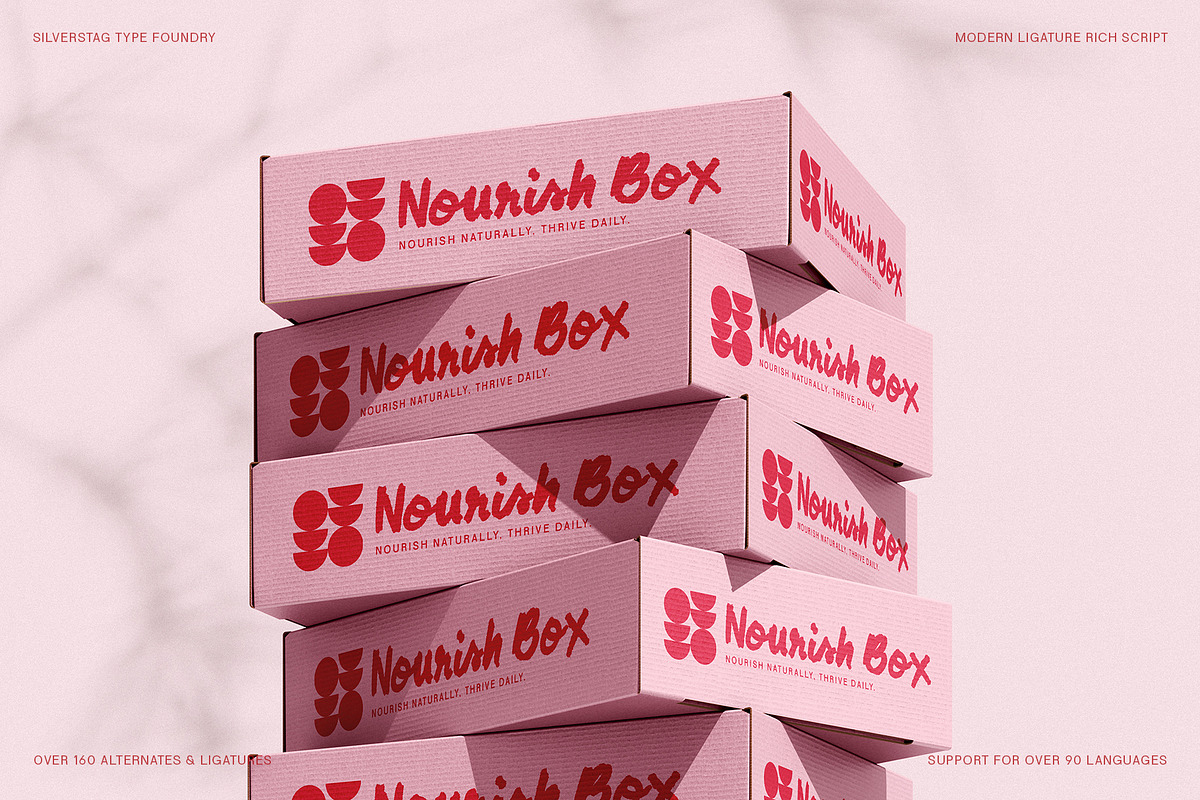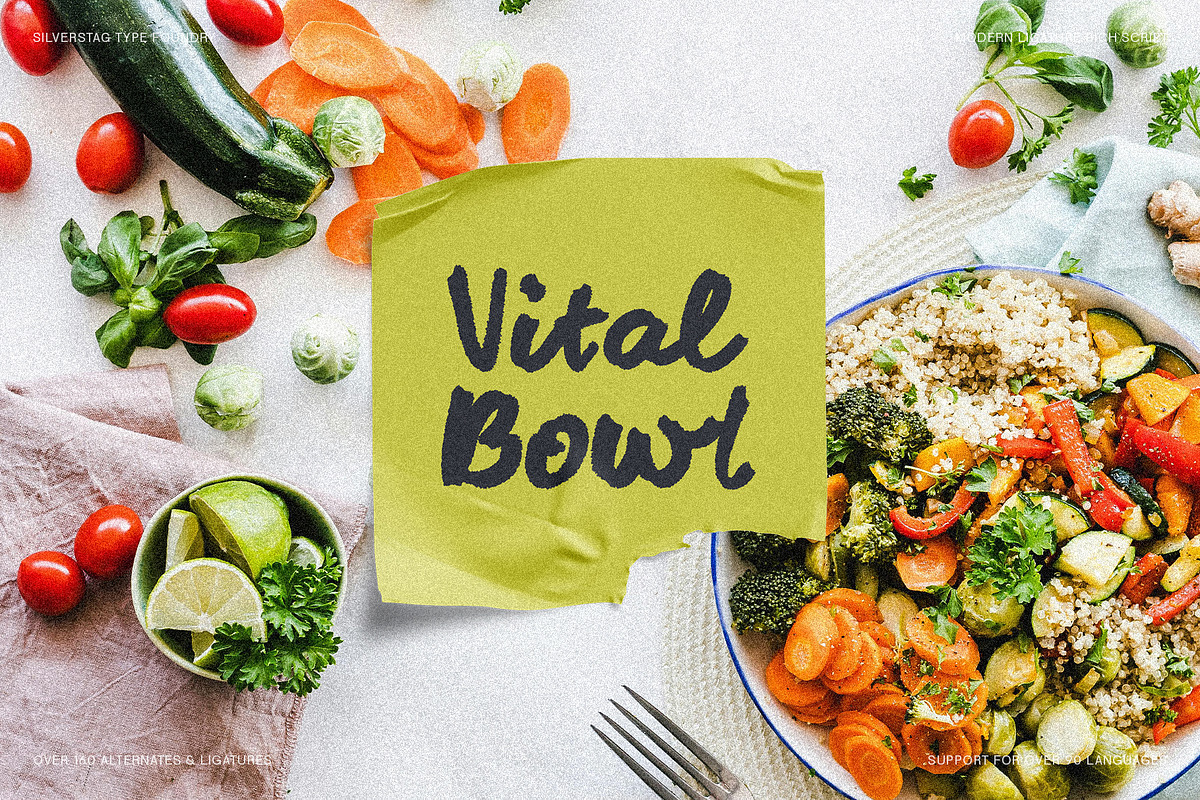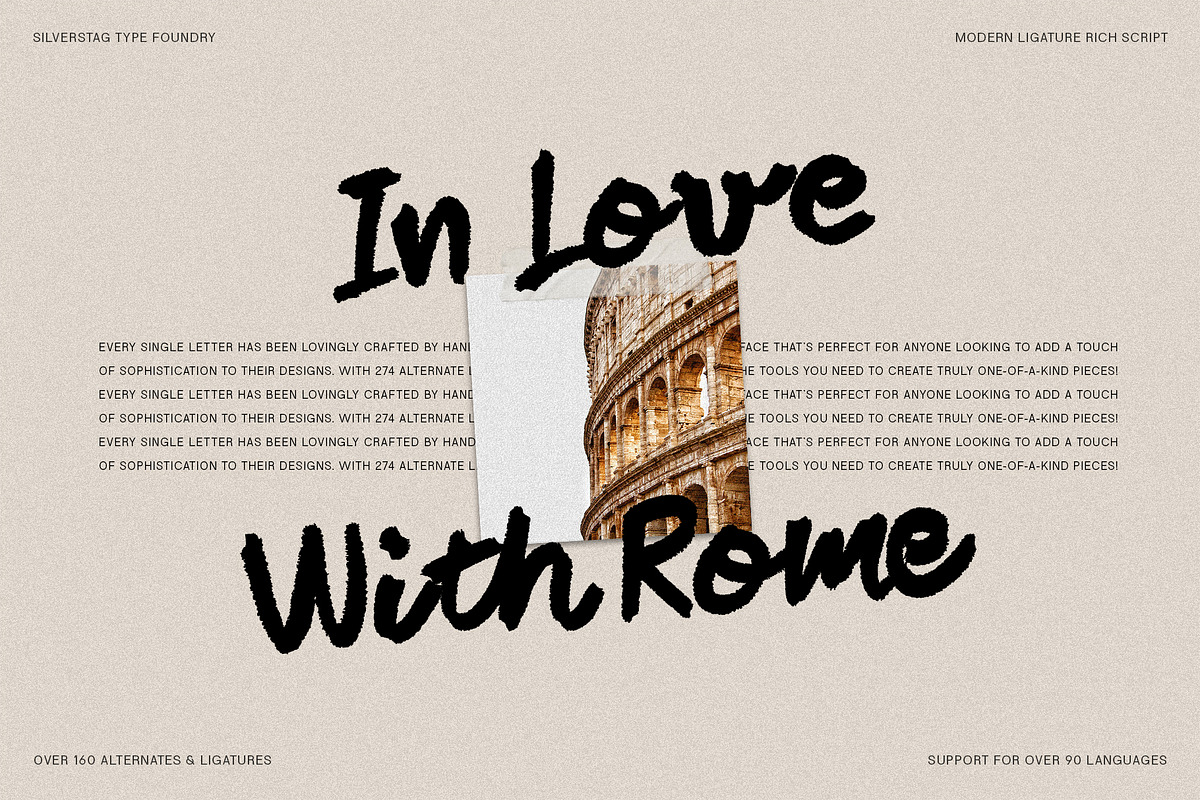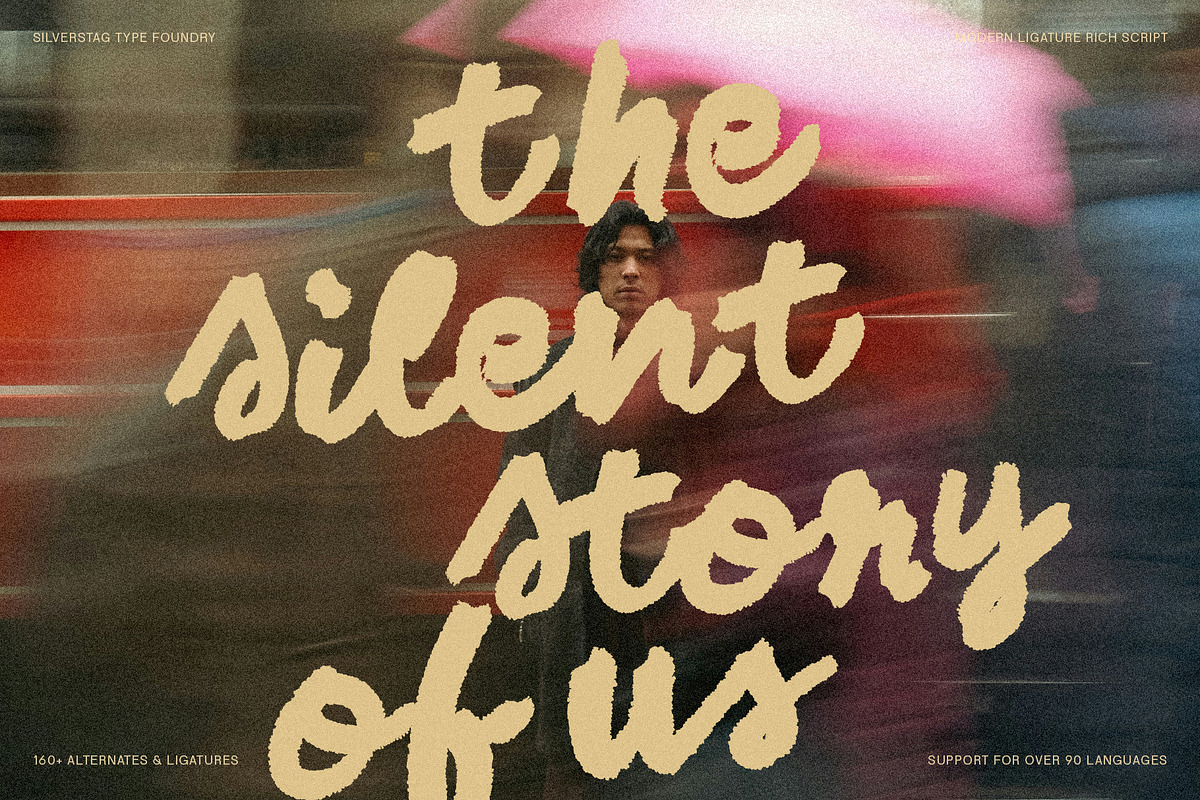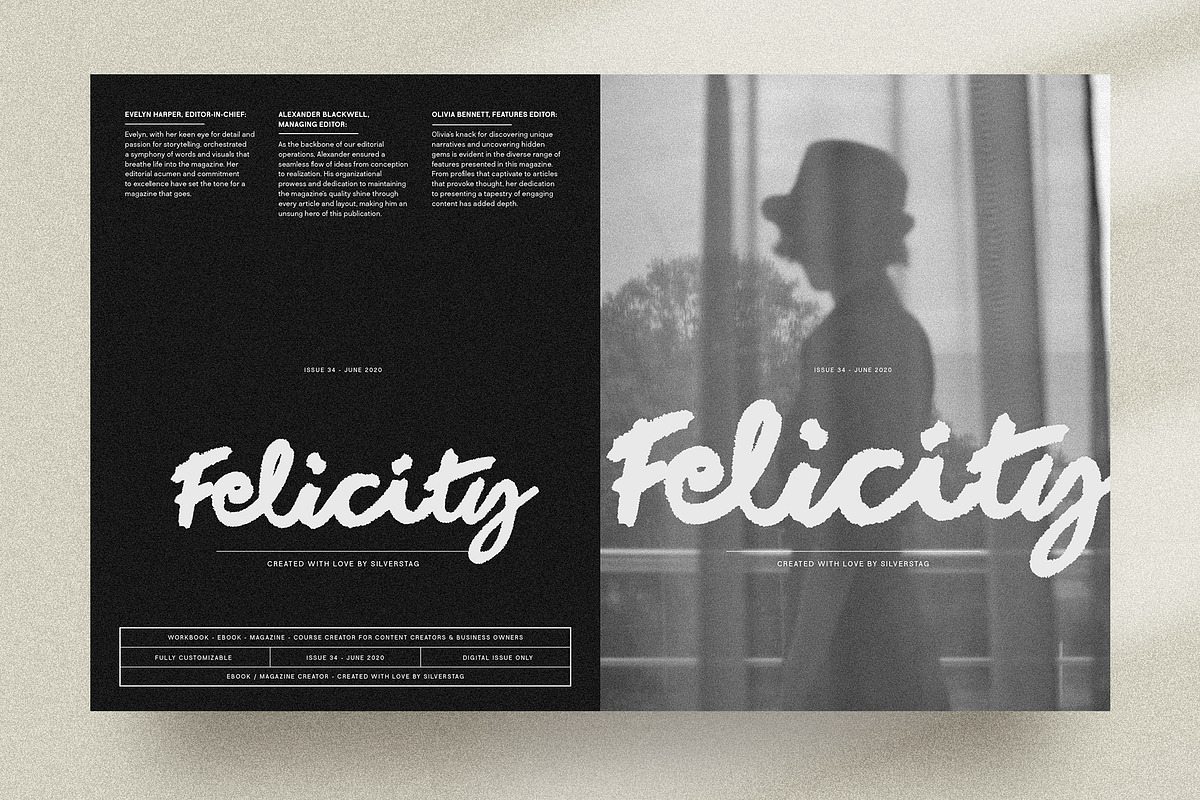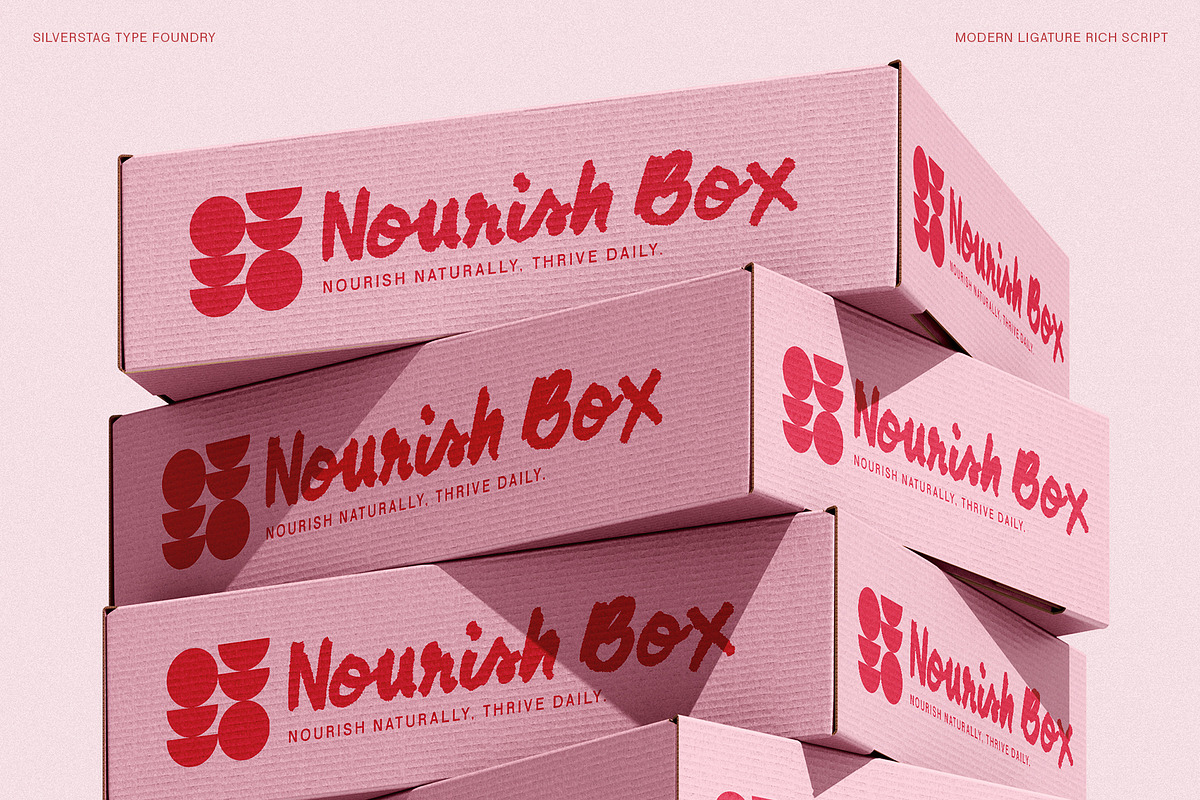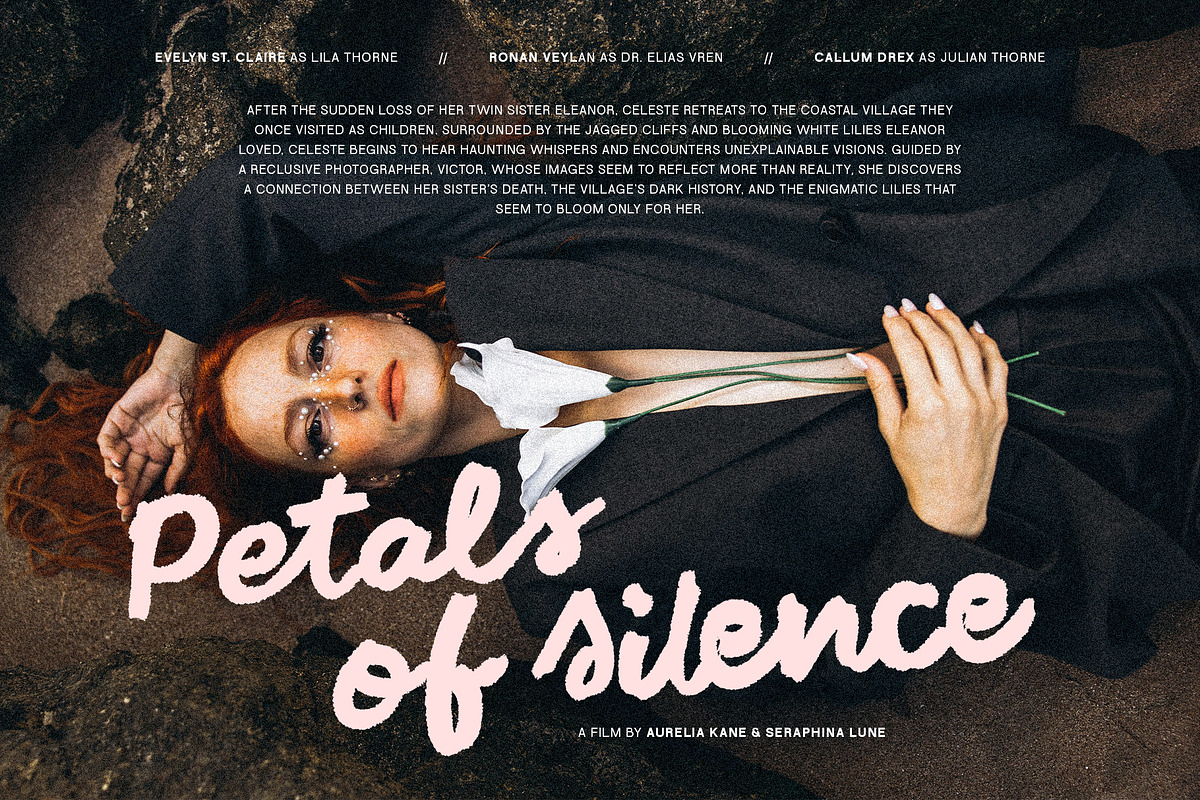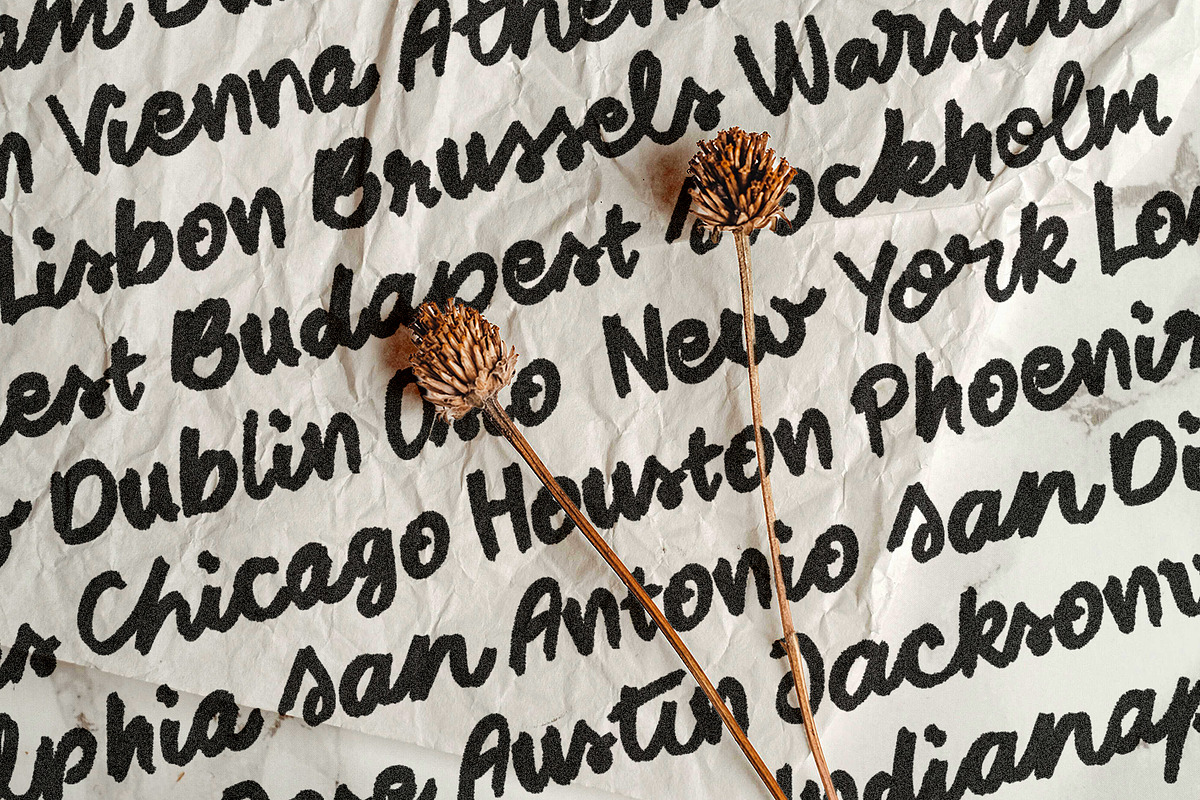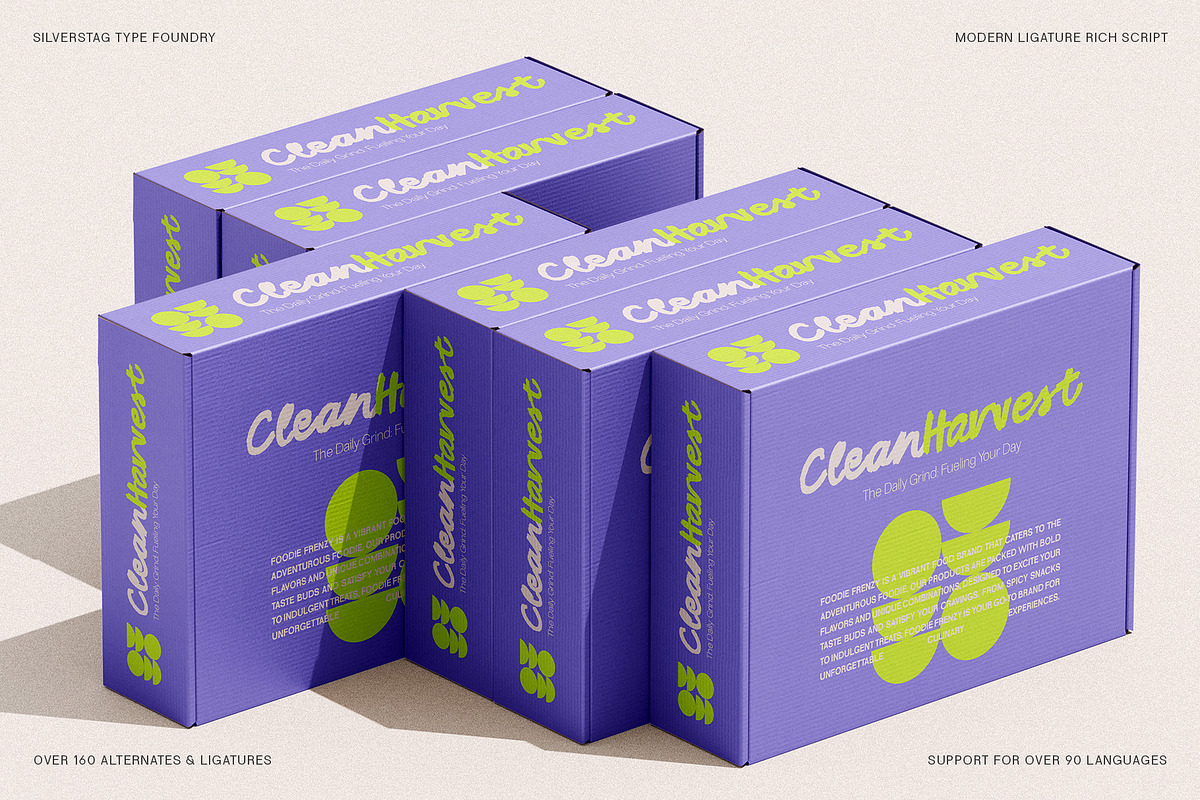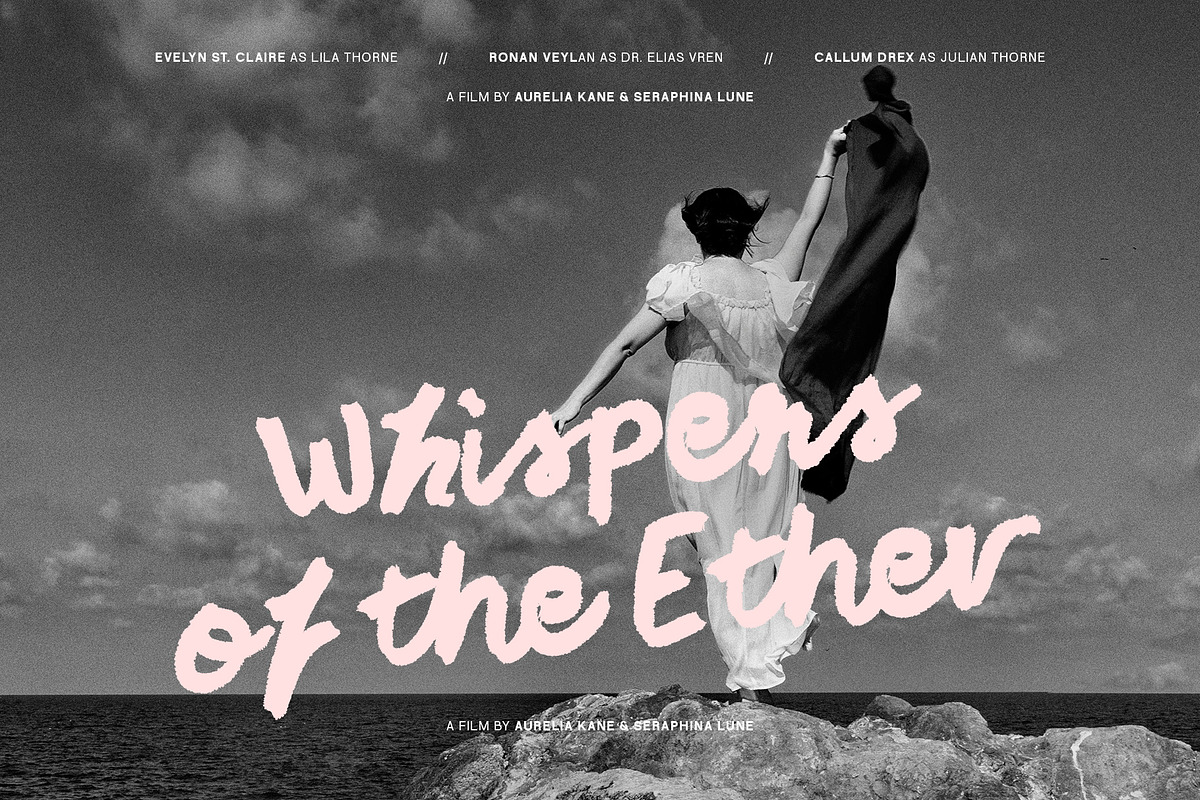
Midnight Chianti - Handwritten Font
Introducing SLTF Midnight Chianti, a bold handwritten font that combines modern style with authentic craftsmanship. Designed to elevate your creative projects, this font brings a unique personality to your designs with its distinctive handwritten aesthetic. Crafted with care, SLTF Midnight Chianti offers three complete sets of uppercase and lowercase letters, ensuring versatility for any project. With over 50 custom-designed ligatures, this typeface achieves a realistic and seamless handwritten look, making it perfect for adding an organic, personal touch to your designs.
SLTF Midnight Chianti is fully equipped to support over 90 languages, making it a truly global font solution. Whether you’re designing for branding, packaging, editorials, social media, or custom products, this typeface delivers boldness and sophistication in every letter. Its natural flow and dynamic appearance make it ideal for projects where authenticity and creativity are key.
- Three full sets of uppercase and lowercase letters: Provides endless design possibilities, giving your work a unique, handwritten feel.
- 50+ ligatures: Creates an authentic, flowing handwritten effect with natural connections between letters.
- Multilingual support: Covers over 90 languages, allowing for global reach and inclusivity.
- 100% unique and handcrafted: This font was meticulously created to ensure originality and a distinctive aesthetic.
- Versatility for all projects: Perfect for branding, logos, packaging, posters, editorial design, social media graphics, and more.
Why Choose SLTF Midnight Chianti?
This typeface is perfect for anyone looking to make a bold and personal statement. The natural flow and handcrafted quality make it stand out in any project, whether it’s a minimalist logo or an elaborate social media post. With its dynamic ligatures and alternate letter sets, you’ll have all the tools you need to create stunning, eye-catching designs.
- Branding and Identity: Add a bold and personal touch to logos, business cards, and stationery.
- Packaging: Ideal for products that require a handcrafted or organic aesthetic.
- Editorial Design: Create striking headlines, covers, and layouts for magazines, books, and posters.
- Social Media Graphics: Capture attention with bold, engaging posts and stories.
- Custom Projects: Perfect for invitations, art prints, apparel, and more.
SLTF Midnight Chianti is not just a font—it’s a creative statement. Elevate your work with this modern bold handwritten typeface, designed to bring authenticity, creativity, and global appeal to your designs.
Embrace the charm of SLTF Midnight Chianti and let your creativity flow!